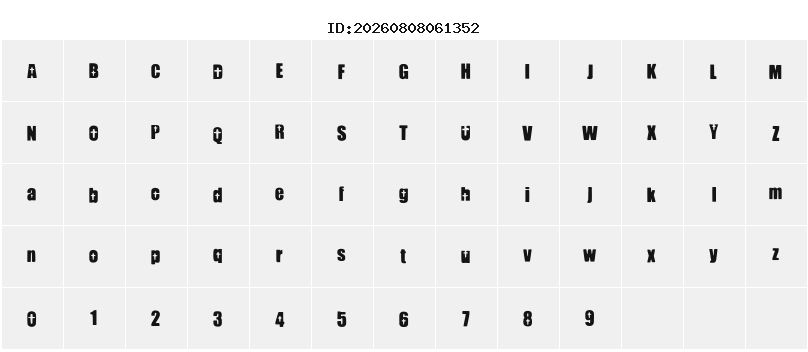
PrettyThings Preview
• Font Name: PrettyThings
• Full Font Name: PrettyThings
About PrettyThings.ttf
PrettyThings.ttf is a modern, elegant sans-serif font designed for ultimate readability and visual harmony. Perfect for branding, headlines, web design, and print materials.